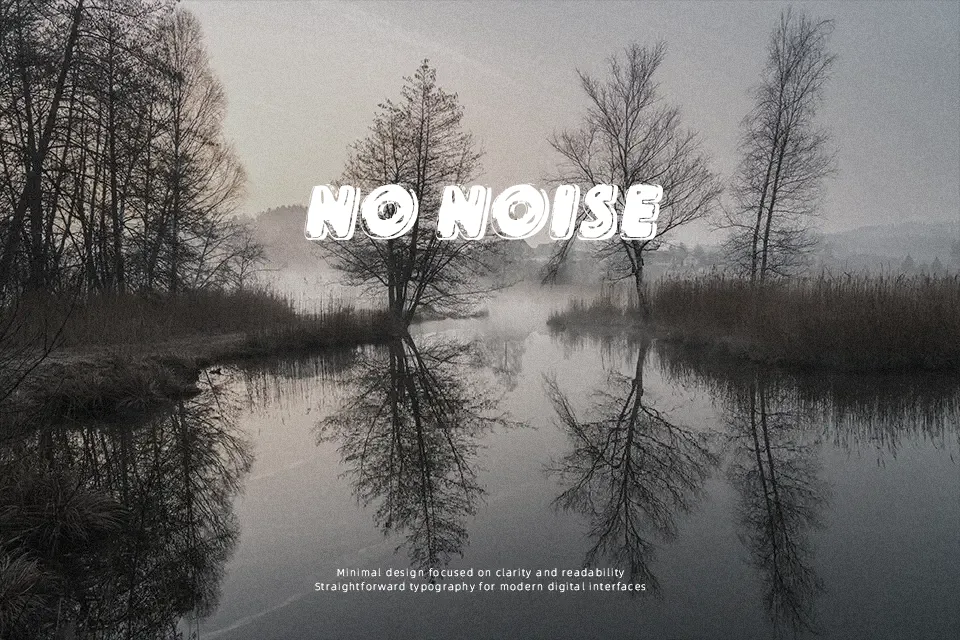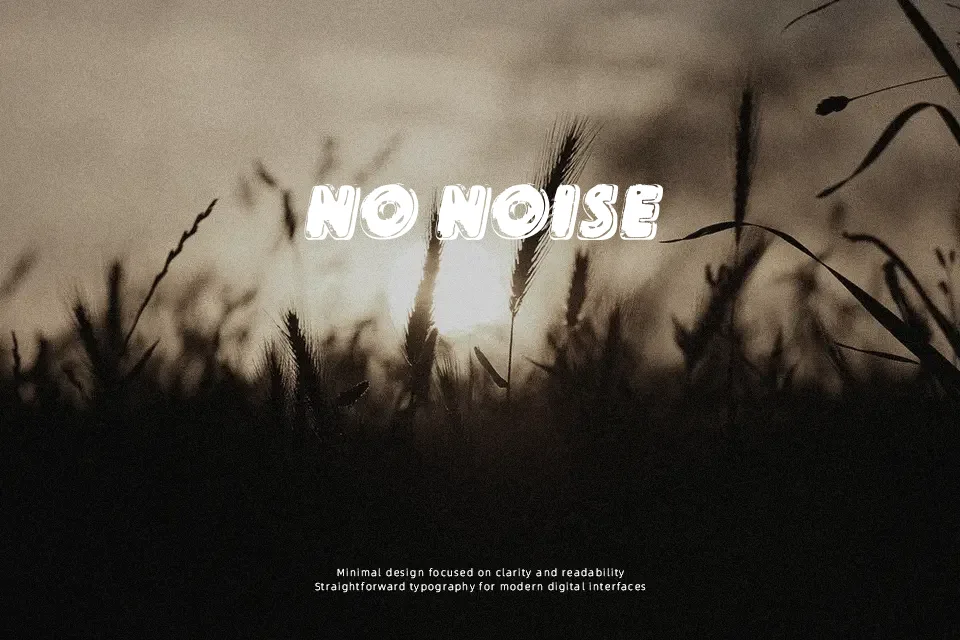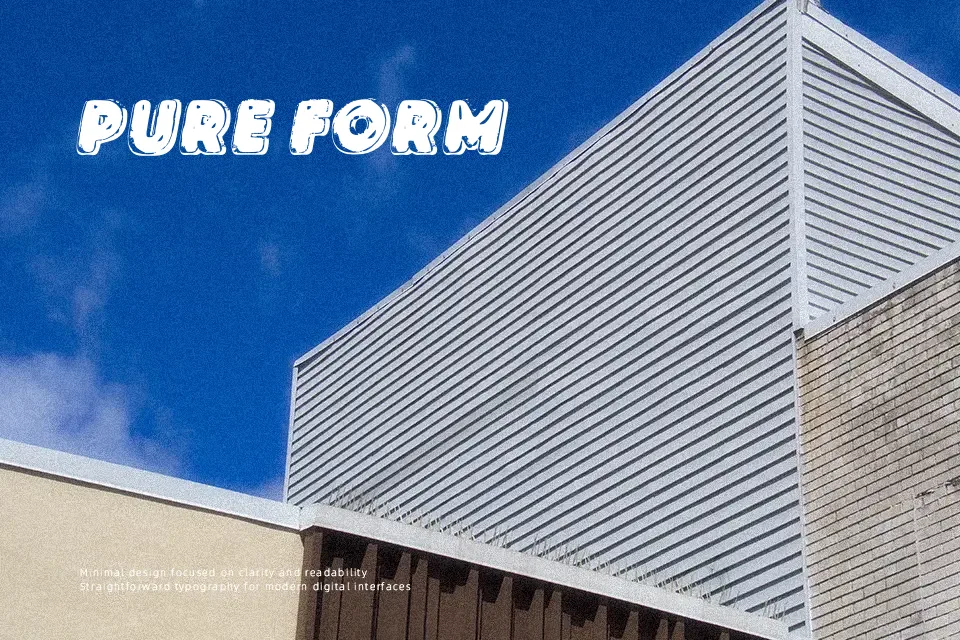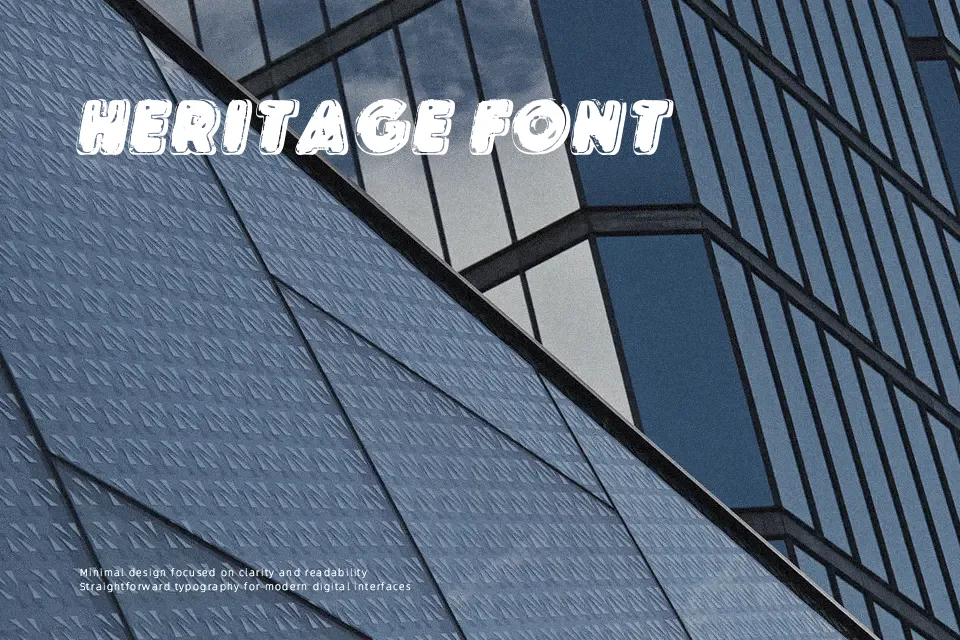
Skylens Font
Skylens Font introduces a heavy display aesthetic defined by bold slanted letterforms and a distinctive textured interior pattern. Thick uniform strokes and rounded character contours establish immediate visual weight, while the dynamic italic angle injects forward momentum into every word. The compact character spacing maintains tight cohesion across short headlines, ensuring the design remains striking and easily recognizable at large scales. However, the heavy stroke density and internal distressing significantly degrade legibility in dense body text and small user interface elements. This typeface serves as an outstanding choice for video game titles, extreme sports graphics, and streetwear apparel requiring intense visual authority.
Best For: streetwear apparel graphics,video game packaging,action movie title cards,music festival posters
Not Ideal For: continuous paragraph text,mobile user interface labels,legal contracts,technical documentation
Perfect for branding, gaming, and headline, with a bold and decorative style.